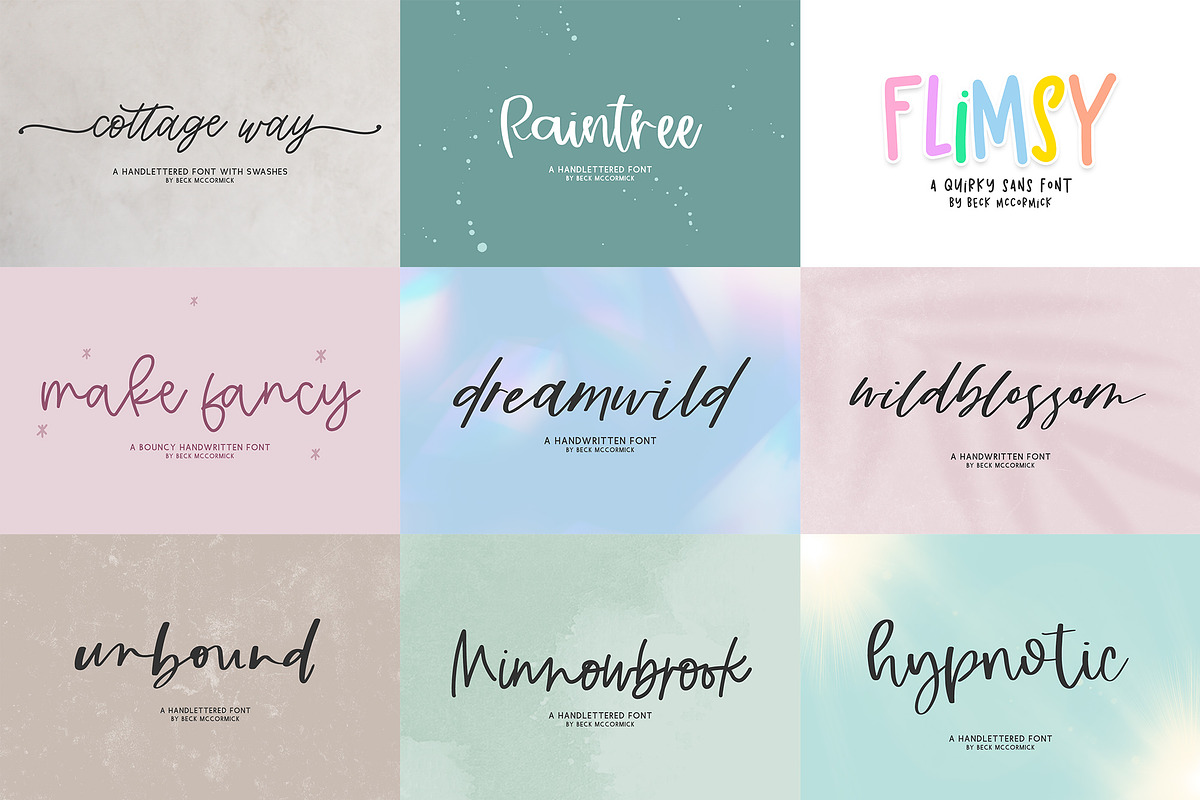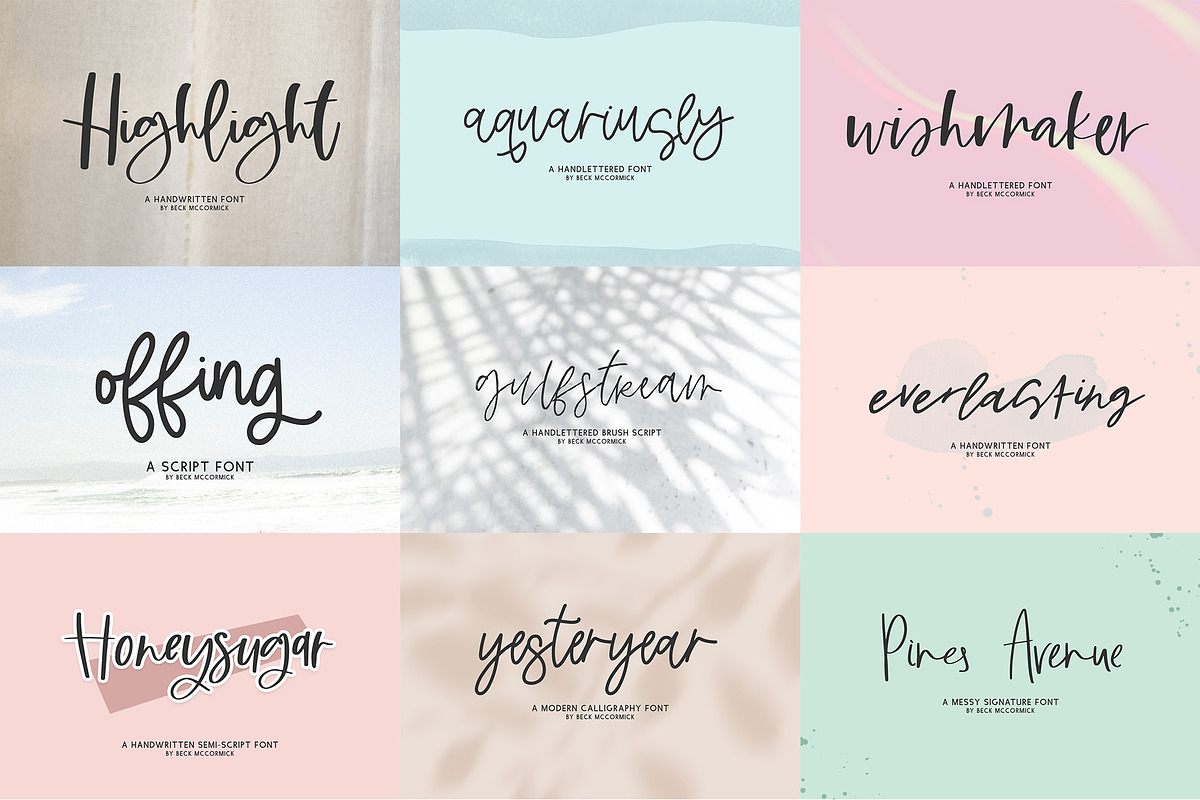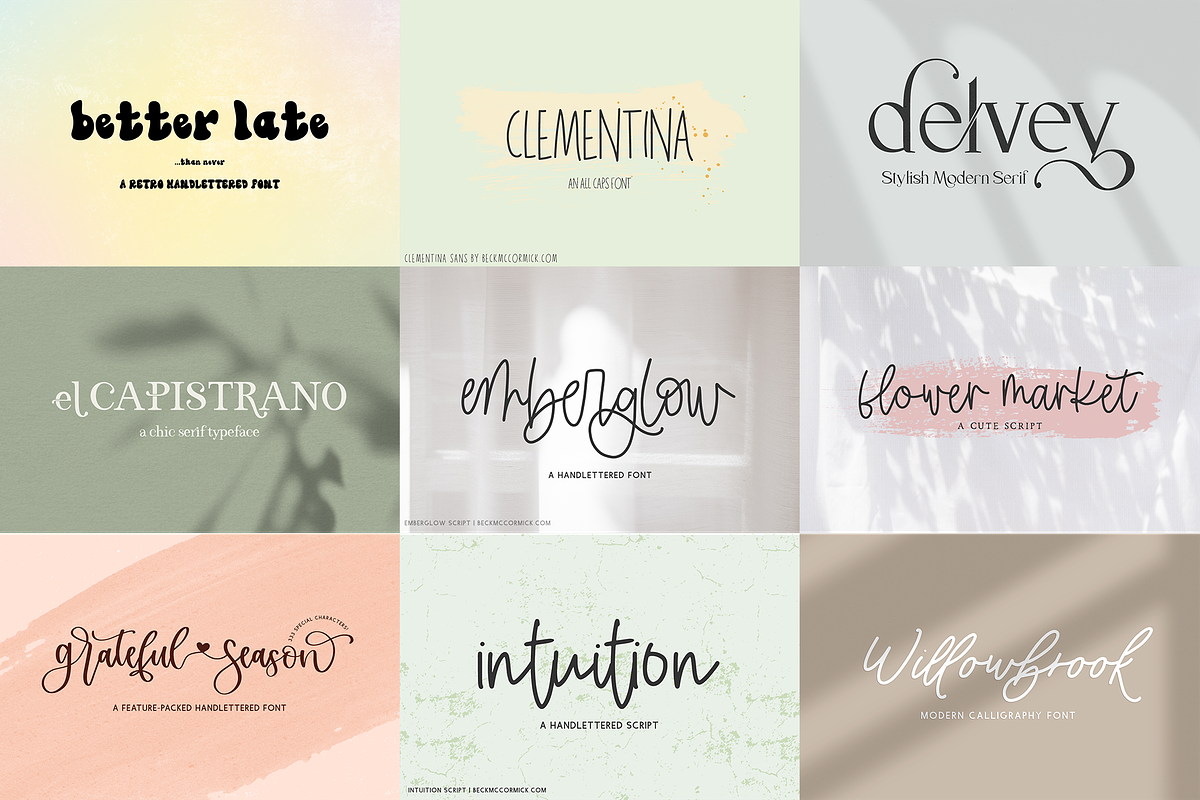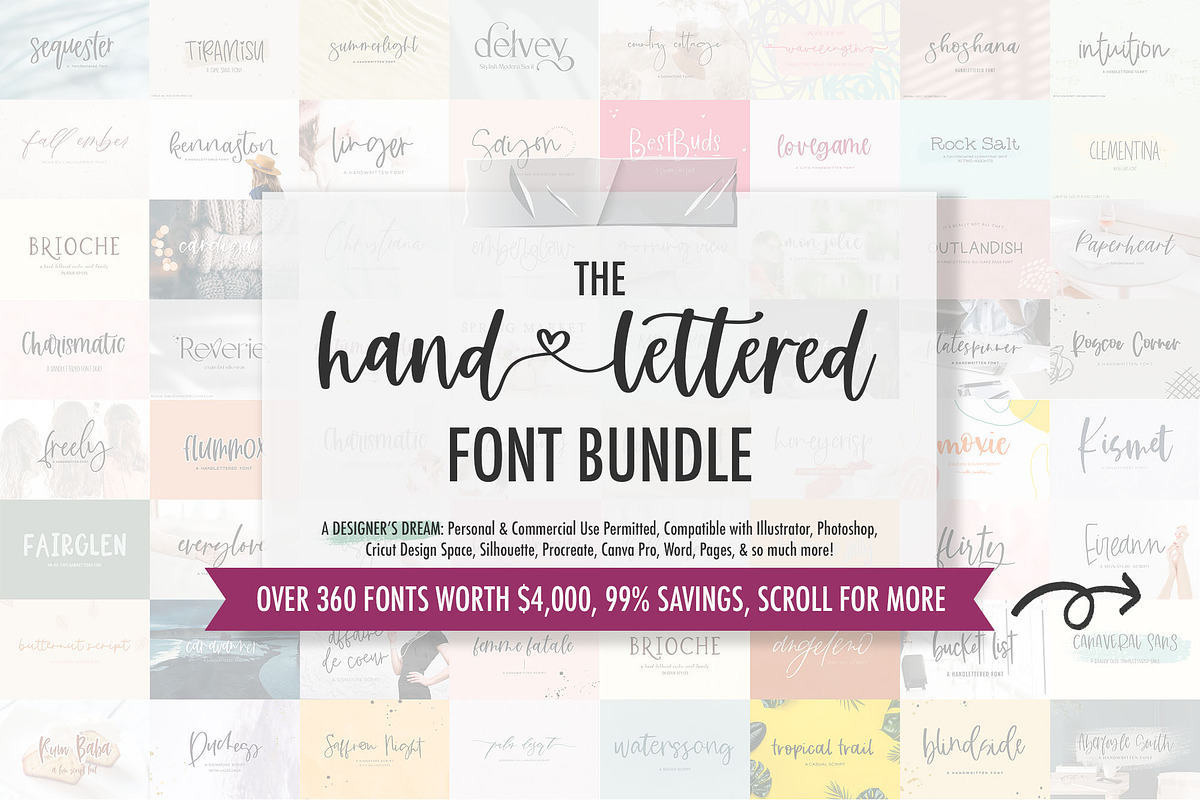
Handlettered Font Bundle
There are over 360 fonts included in this bundle (as of July 2023), including rustic fonts, farmhouse fonts, beautiful script fonts, calligraphy fonts, display fonts, sans fonts, and serif fonts! Use as Cricut fonts, Procreate fonts, Illustrator or Photoshop fonts, Glowforge fonts, GoodNotes fonts, or even with your Canva Pro account. Take a peek through all of the images to see what's included, or poke around my Creative Market shop for a more extensive view of each font!
Why Handlettered Font Bundle is worth a look